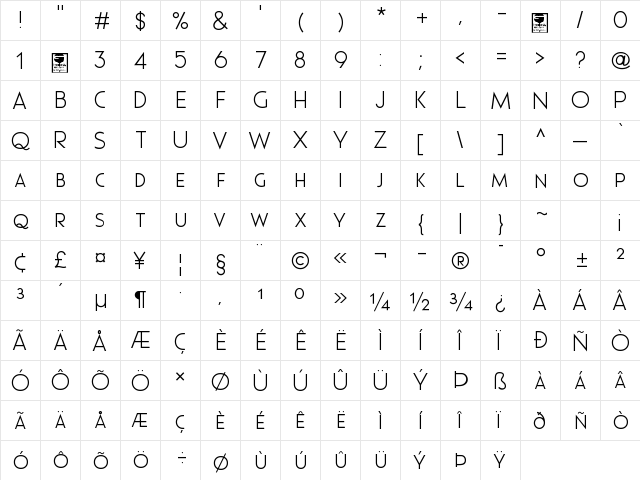
Pages Grotesque Light Demo Regular
| Foundry | StudioTypo |
| Designer | Mehmet Abac |
Design Context for Pages Grotesque Light Demo Typeface
Pages Grotesque Light Demo is a composed and adaptable typeface that performs quietly and consistently across a wide range of design contexts. The delicate stroke weight brings airiness and refinement to layouts.